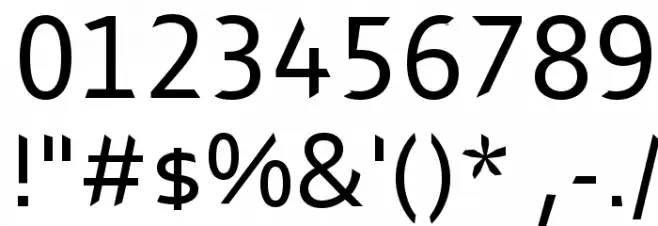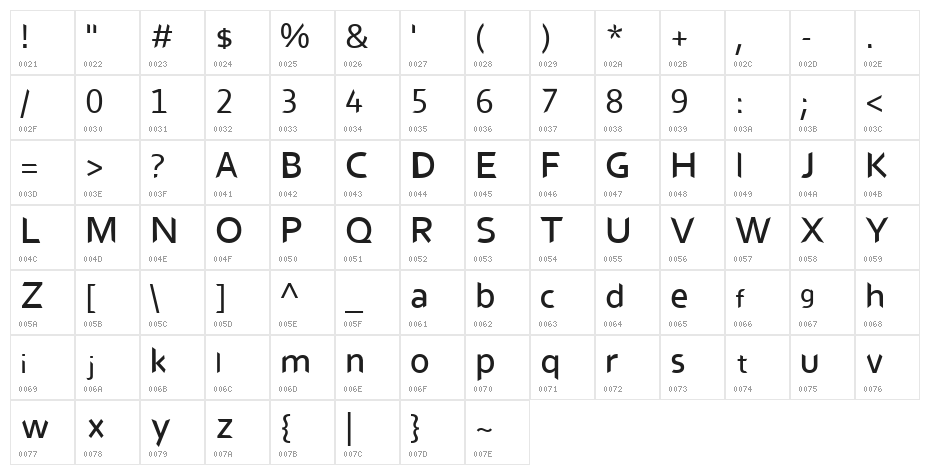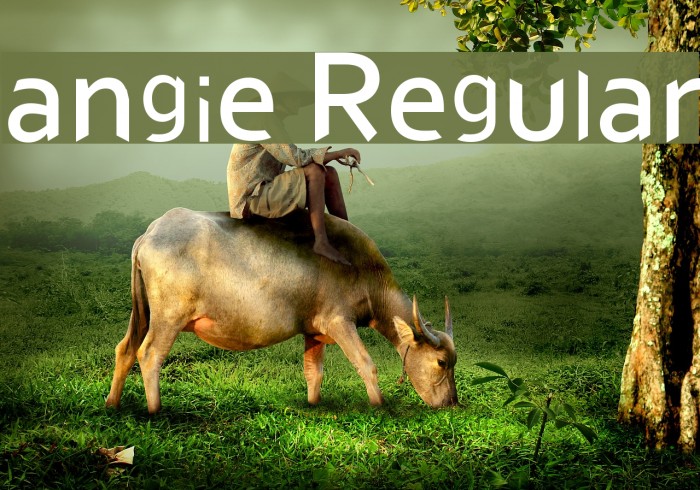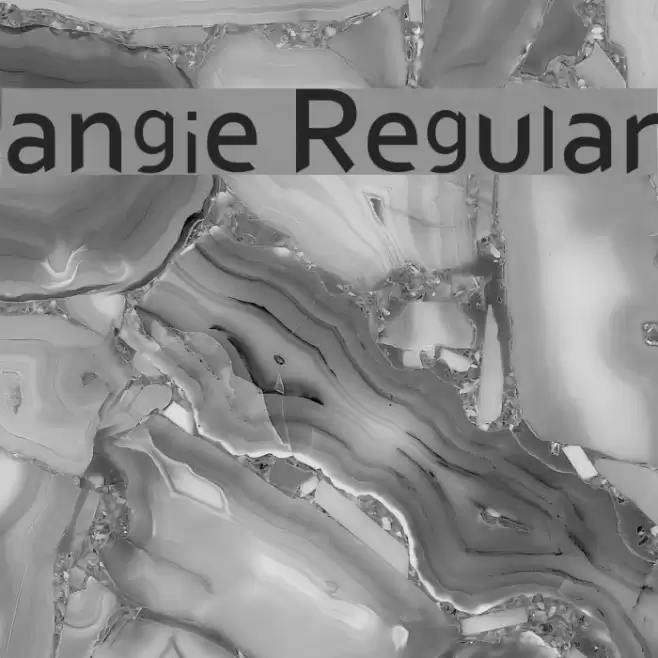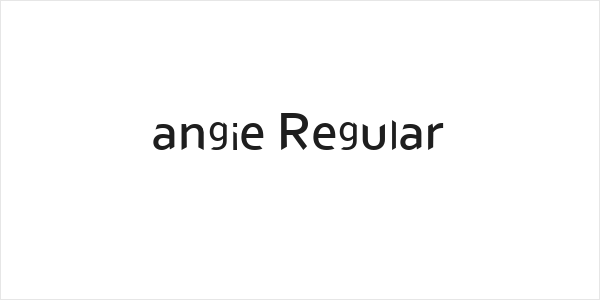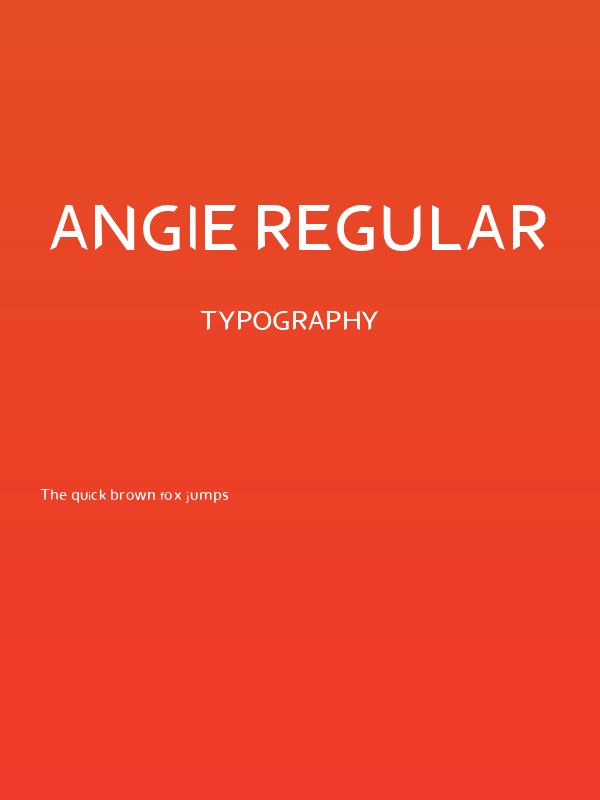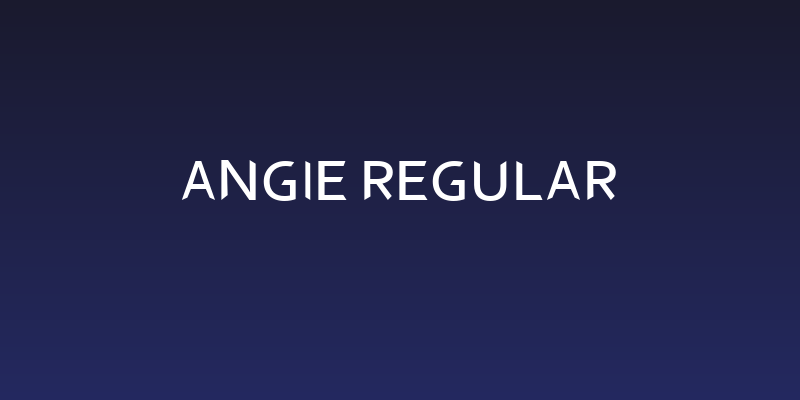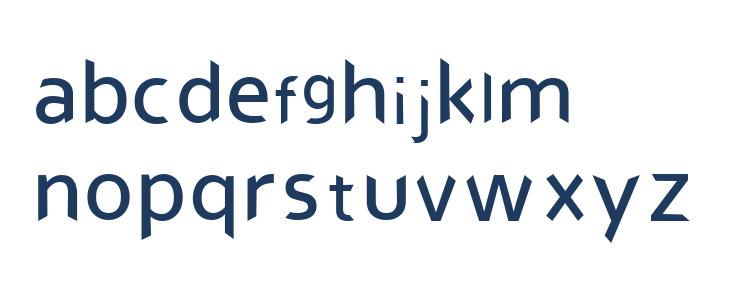
angie Regular Font
angie Regular Description
This font features a clean and modern sans-serif design with a geometric structure. The characters are well-balanced, with a consistent stroke width that gives it a uniform appearance. The uppercase letters are bold and assertive, while the lowercase letters maintain a friendly and approachable feel. The numerals are clear and easy to read, making them suitable for various applications. Special characters are well-integrated, ensuring versatility in different contexts. The overall design is sleek and contemporary, making it ideal for digital and print media.